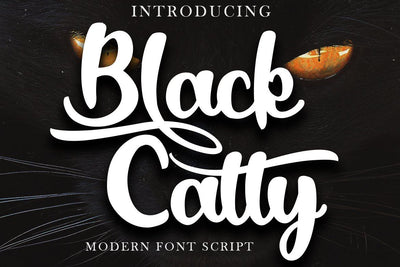
Black Catty Bold Script
Black catty is a font that is designed for commercial purposes such as, covers, films, logos, business cards, t shirts, weddings, and many more
Ligature\
Stylistic set for lowercase\
Basic Latin Language Support (AÀÁÂÃÄÅCÇDÐEÈÉÊËIÌÍÎÏÑOØÒÓÔÕÖUÙÜÚÛWYÝŸÆß )